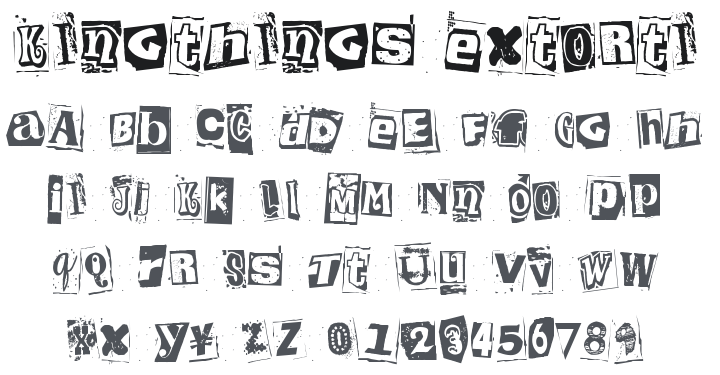
Kingthings Extortion Font
• Kingthings Extortion
About Kingthings Extortion
This font has taken a while to get right - I felt that a supposed ransom note should at least try to look a little random - as if torn out and pasted down - hence no upper or lower case as such, just letters to interchange. I think it works OK.